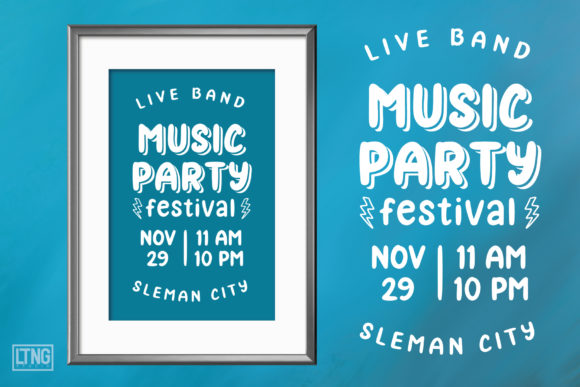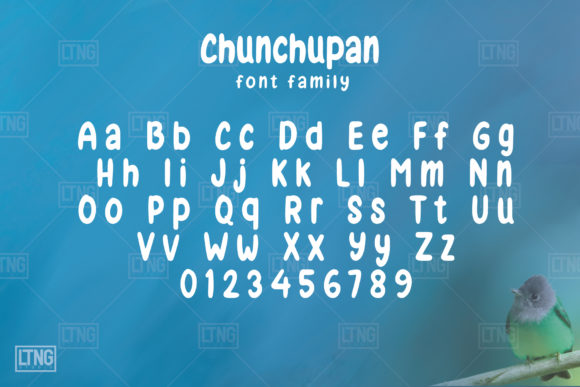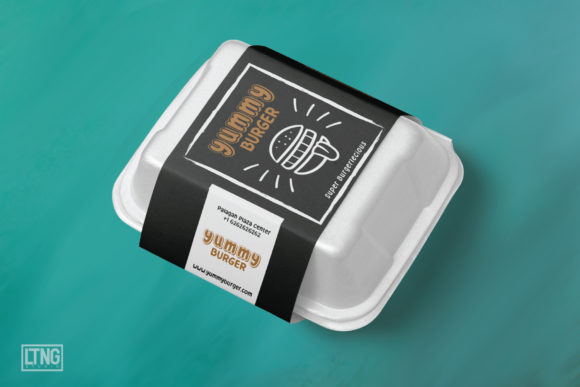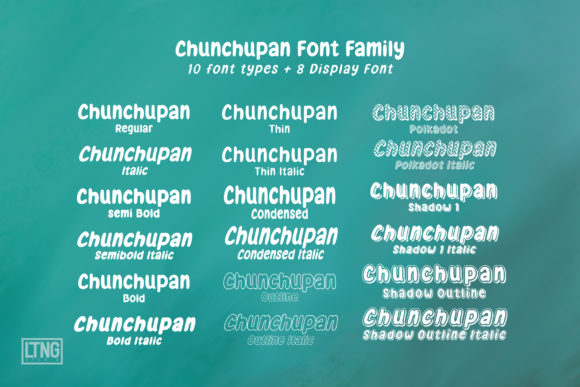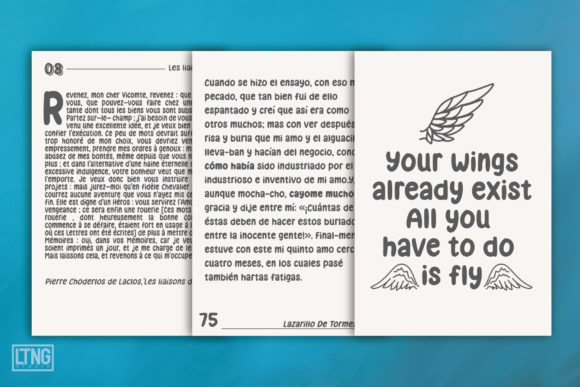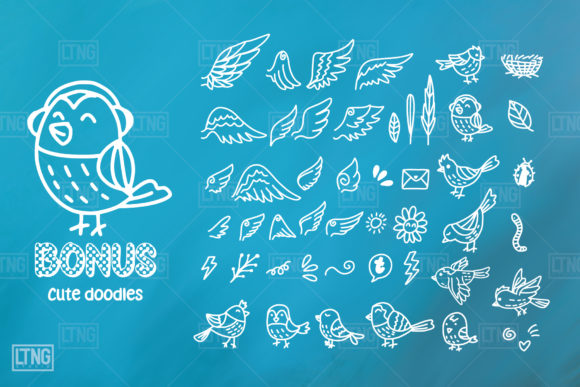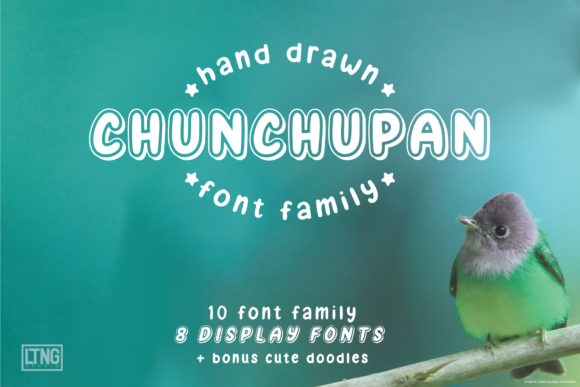
Introducing Chunchupan Font: Elevate Your Designs with a Friendly Display Font
In the world of design, fonts play a crucial role in bringing creative ideas to life. A well-chosen font can make a design stand out, convey the right message, and evoke the desired emotions. If you’re a designer or crafter looking for a beautiful display font to add a personal touch to your projects, you’re in luck! Meet Chunchupan Font, a friendly display font designed to make your creative ideas shine.
What is Chunchupan Font?
Chunchupan Font is a stunning display font that boasts a unique and playful style. Its friendly demeanor makes it perfect for a wide range of design applications, from branding and advertising to crafting and DIY projects. With Chunchupan Font, you can add a touch of personality to your designs and make them more engaging and memorable.
Key Features of Chunchupan Font
- Unique and Playful Style: Chunchupan Font features a one-of-a-kind design that’s both fun and eye-catching.
- Friendly Display Font: Its friendly demeanor makes it perfect for designs that require a personal touch.
- Highly Versatile: Chunchupan Font can be used for a wide range of design applications, from digital projects to print materials.
- Easily Readable: Despite its playful style, Chunchupan Font remains easily readable, making it perfect for headlines, titles, and short paragraphs.
Benefits of Using Chunchupan Font
So, why should you choose Chunchupan Font for your designs? Here are just a few benefits of using this beautiful display font:
- Adds Personality to Your Designs: Chunchupan Font helps you add a personal touch to your designs, making them more relatable and engaging.
- Enhances Creativity: With its unique and playful style, Chunchupan Font inspires creativity and encourages you to think outside the box.
- Perfect for Branding and Advertising: Chunchupan Font is ideal for branding and advertising projects that require a friendly and approachable tone.
- Great for Crafting and DIY Projects: If you’re a crafter or DIY enthusiast, Chunchupan Font is a great addition to your design toolkit, allowing you to add a personal touch to your projects.
How to Use Chunchupan Font
Using Chunchupan Font is easy! Here are a few tips to get you started:
- Headlines and Titles: Use Chunchupan Font for headlines and titles to add a touch of personality to your designs.
- Short Paragraphs: Chunchupan Font is perfect for short paragraphs, such as product descriptions or captions.
- Branding and Advertising: Use Chunchupan Font for branding and advertising projects that require a friendly and approachable tone.
- Crafting and DIY Projects: Add a personal touch to your crafting and DIY projects with Chunchupan Font.
| Font Name | Chunchupan Font |
| Author | LTNG |
In conclusion, Chunchupan Font is a beautiful display font that can elevate your designs and add a personal touch to your creative ideas. Its unique and playful style, friendly demeanor, and high versatility make it perfect for a wide range of design applications. Whether you’re a designer, crafter, or DIY enthusiast, Chunchupan Font is a great addition to your design toolkit. So why wait? Add Chunchupan Font to your designs today and notice how it makes them stand out!